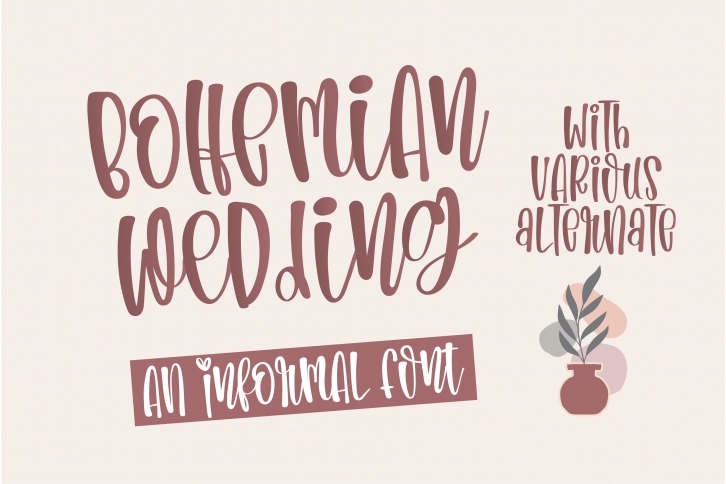
Bohemian Wedding is a cool, friendly, and informal handwritten font, that can be used for all chalkboard quotes or teaching material! Its authentic look and feel will add a personal and realistic feel to your designs. Bohemian Wedding is PUA encoded which means you can access all of the glyphs and swashes with ease!